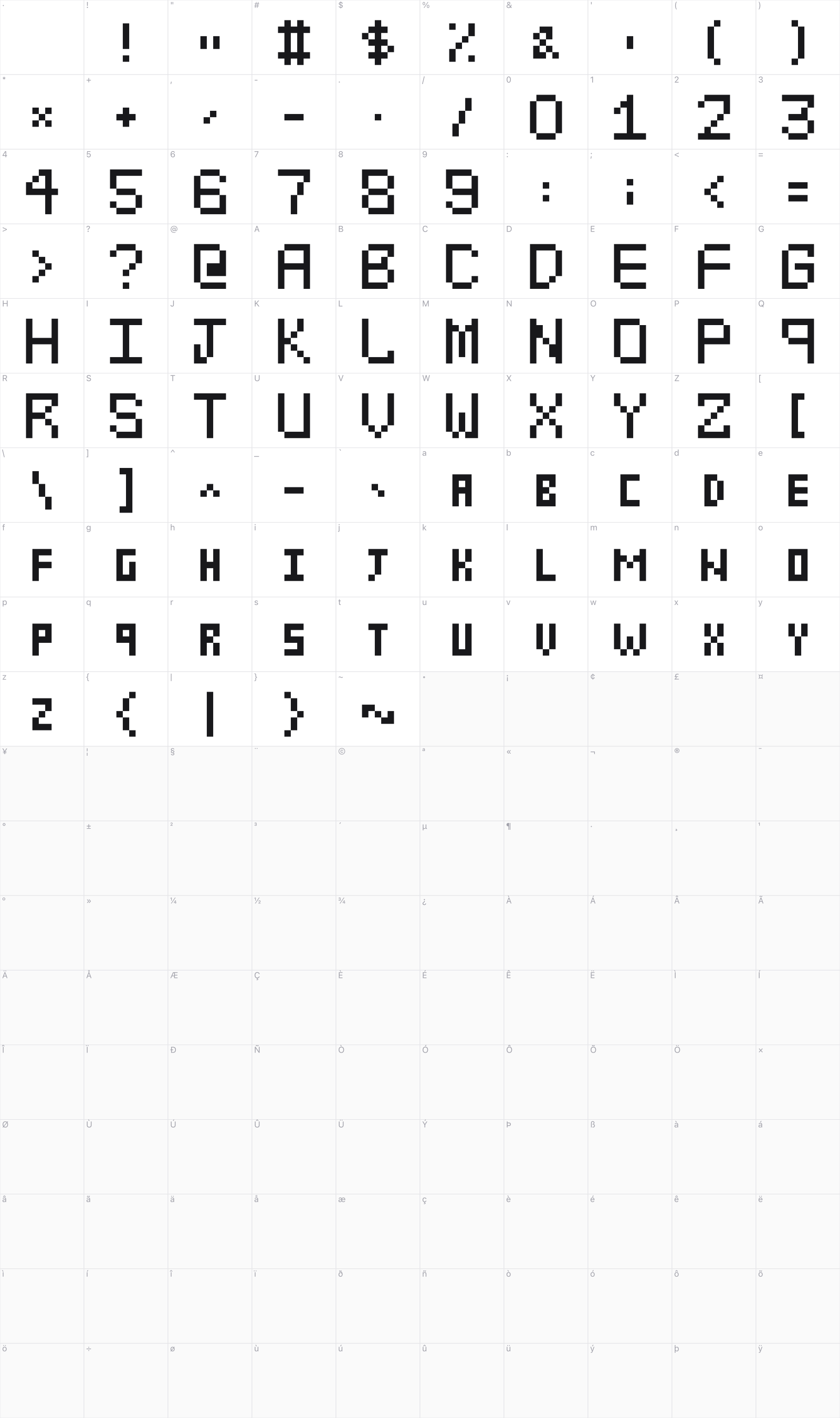
Nereus
by Nereus Pixel
Nereus is a bold bitmap-style pixel font built from square grid modules with no stroke contrast and heavy proportions. It carries the unmistakable look of early arcade and home-computer typography, all chunky blocks and tight spacing. Strong for gaming interfaces, retro branding, and any project that wants an 8-bit attitude.